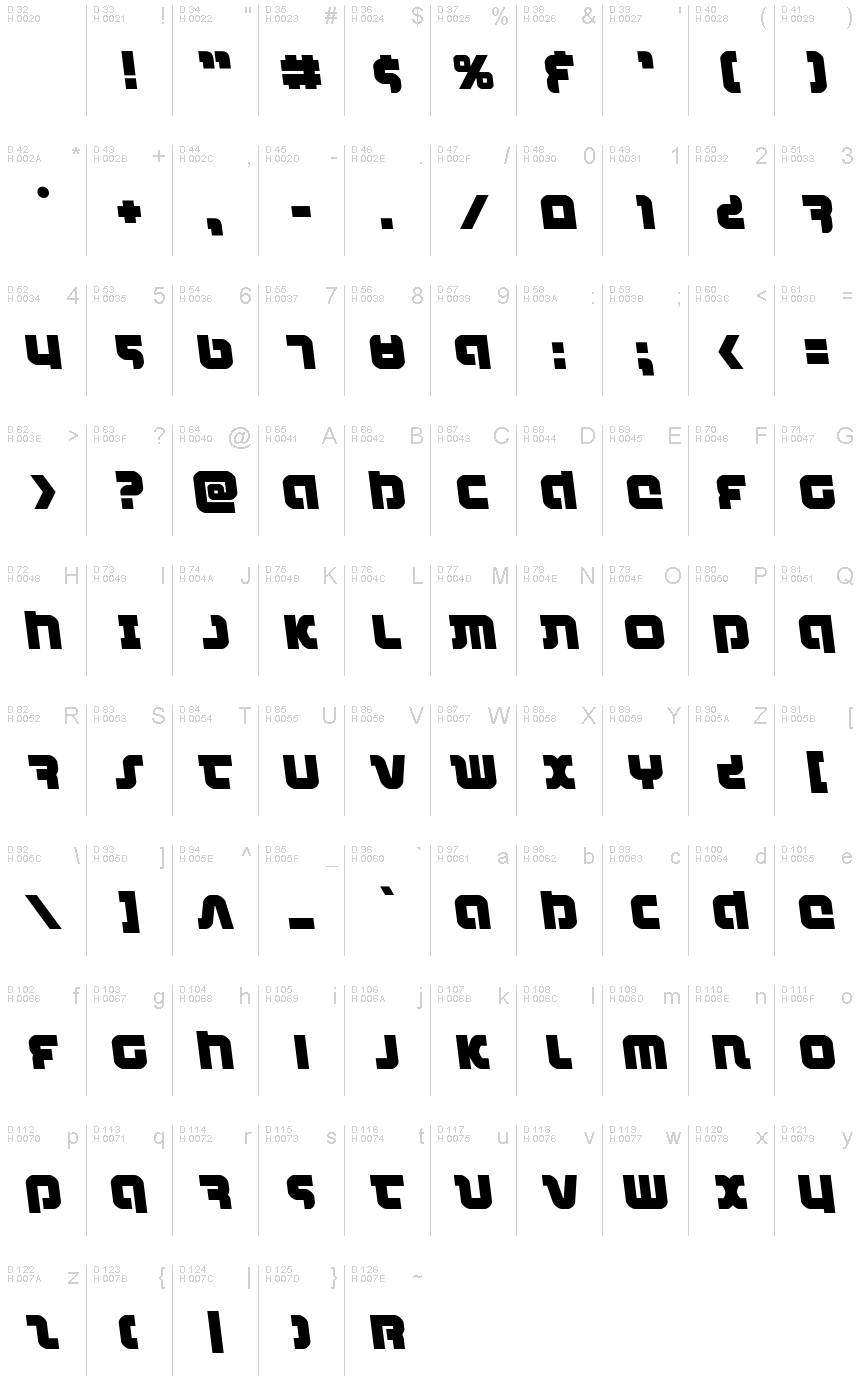
Combat Droid Semi-Leftalic
Combat Droid Semi-Leftalic commands attention with its bold and striking design. Emerging from the creative mind of Iconian Fonts, this member of the Combat Droid family encapsulates a futuristic aesthetic that feels both edgy and sophisticated. With its distinct, semi-slanting characters, this font exudes movement and dynamism.
The bold weight enhances its powerful presence, making it an excellent choice for headlines, posters, and any display work where impactful visual communication is paramount. Whether used in sci-fi contexts or tech-oriented design themes, Combat Droid Semi-Leftalic transforms ordinary text into an extraordinary visual experience. Ideal for projects aiming to convey strength and innovation, this font ensures your message stands out with clarity and style.